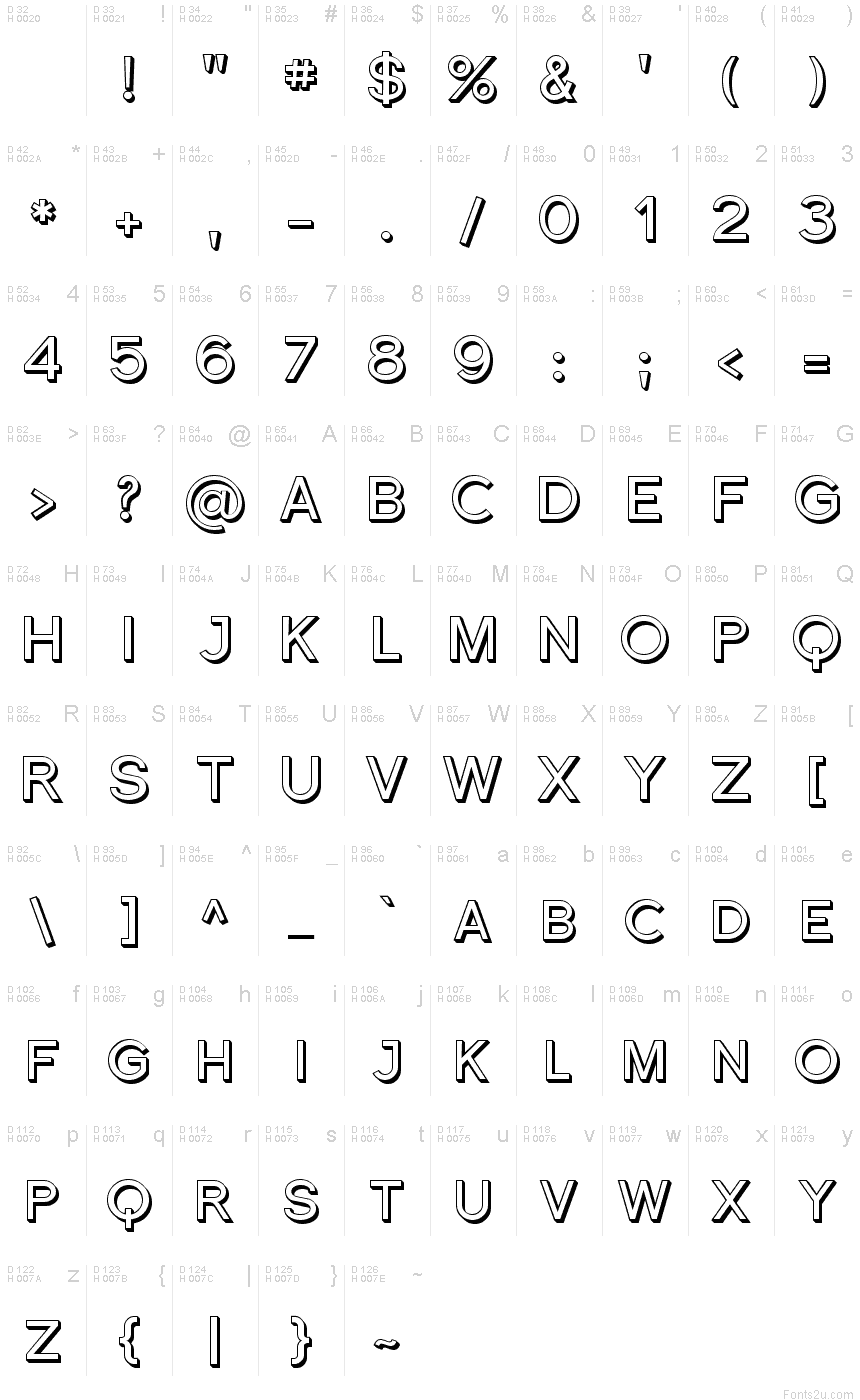
Florencesans SC Shaded
Florencesans SC Shaded font by Derek Vogelpohl is a free 3D sans serif display typeface. Its clean geometric skeleton is wrapped in bold black outlines and crisp offset shading, giving every word a chunky, poster-style depth without needing any special effects. The letters feel both retro and sharp, like old shop signage redrawn with a digital pen-strong, tidy, and instantly attention‑grabbing.
Using Florencesans SC Shaded, headlines and short phrases pop off the page for event posters, book covers, merch graphics, bold logos, packaging, and signage. This free font works best in big sizes where the shaded volume really reads; pair it with a simple grotesque or geometric sans in smaller text to keep layouts balanced and readable.